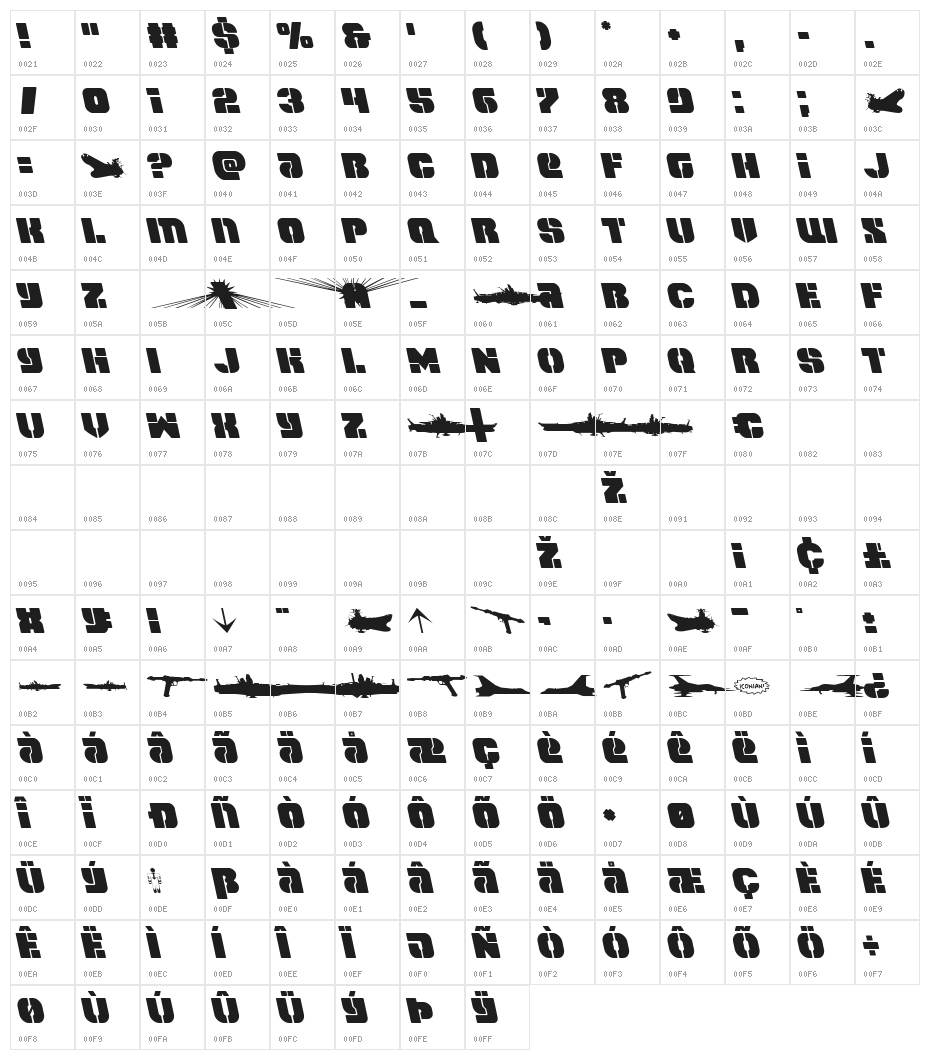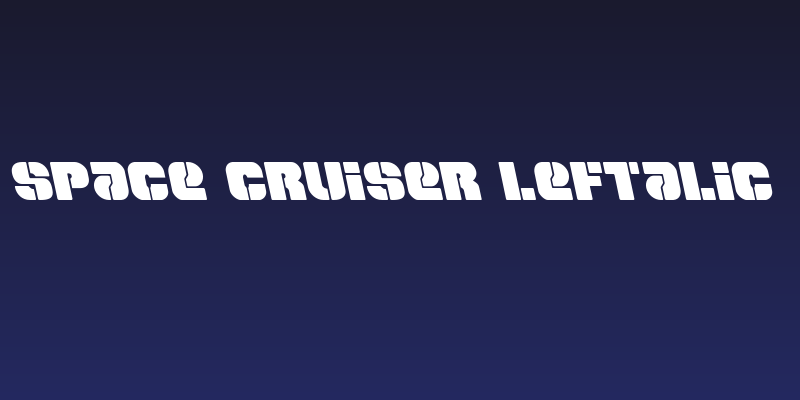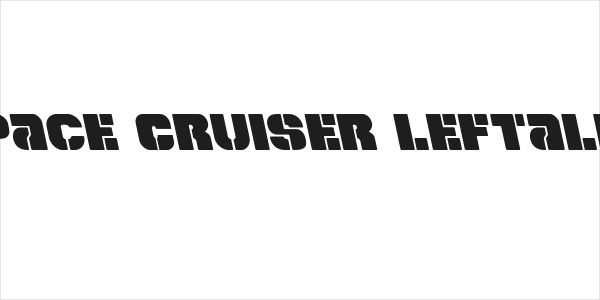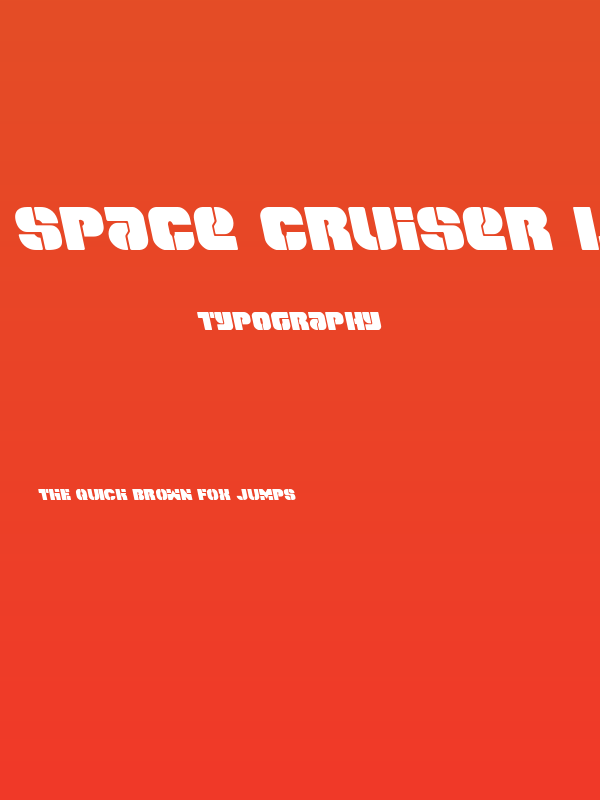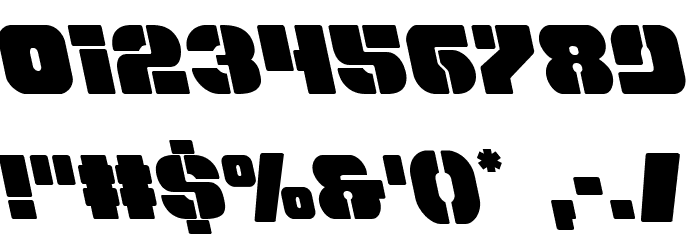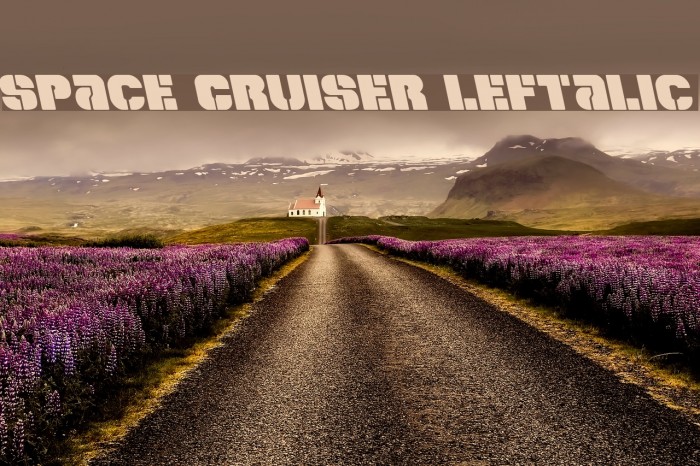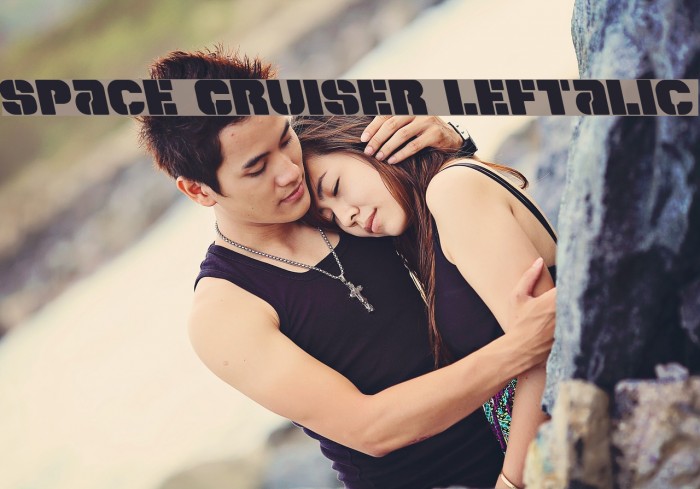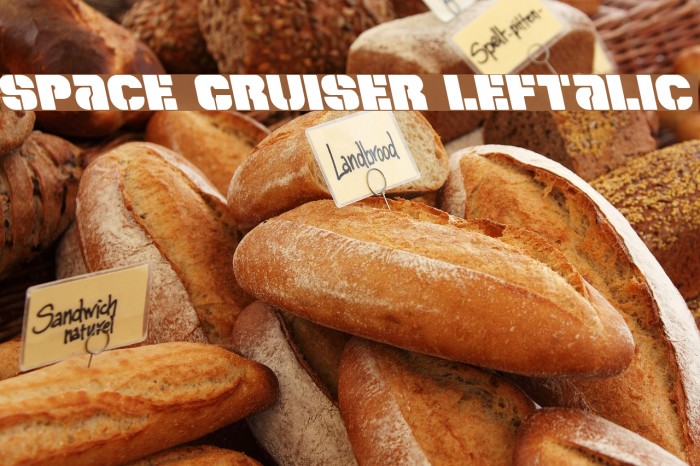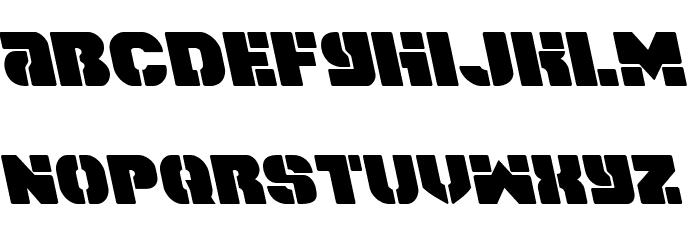
Space Cruiser Leftalic Font
Space Cruiser Leftalic Description
This font features a bold and futuristic design with a distinctly geometric and blocky appearance. The characters are constructed with thick, solid strokes, creating a strong visual impact. The design incorporates angular cuts and sharp edges, giving it a modern and industrial feel. The uppercase and lowercase letters maintain a consistent style, with a uniform width that enhances readability. Numbers and special characters follow the same design principles, ensuring a cohesive look across all elements. The font's unique style makes it suitable for projects that require a bold and eye-catching typeface.
| Proposed Projects | Ideal for sci-fi themed posters, video game titles, technology branding, and futuristic product packaging. |